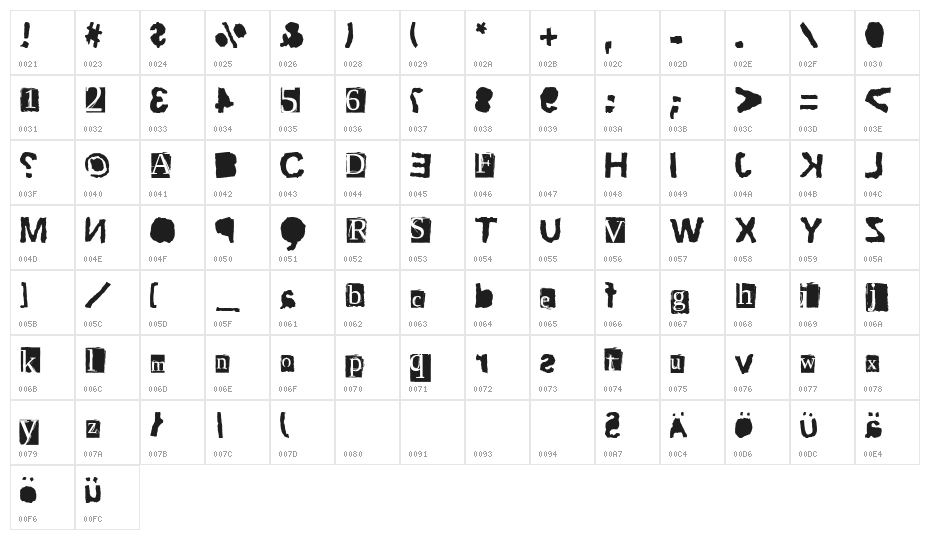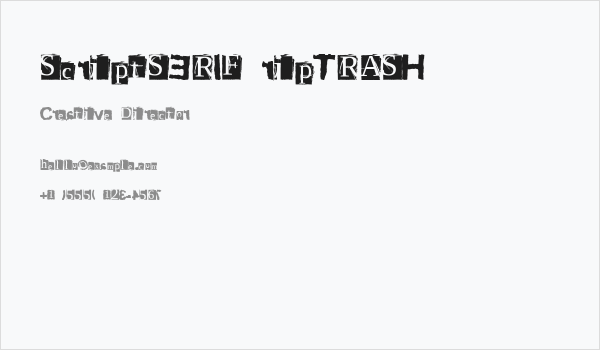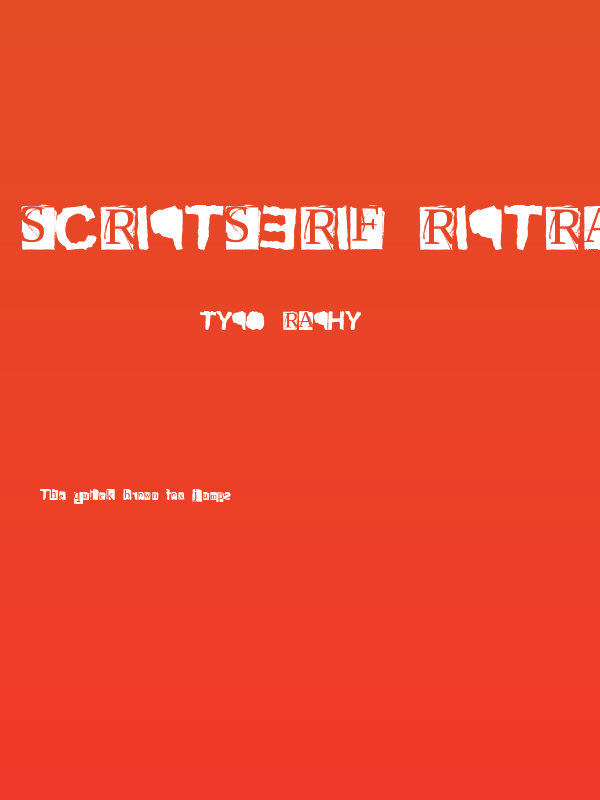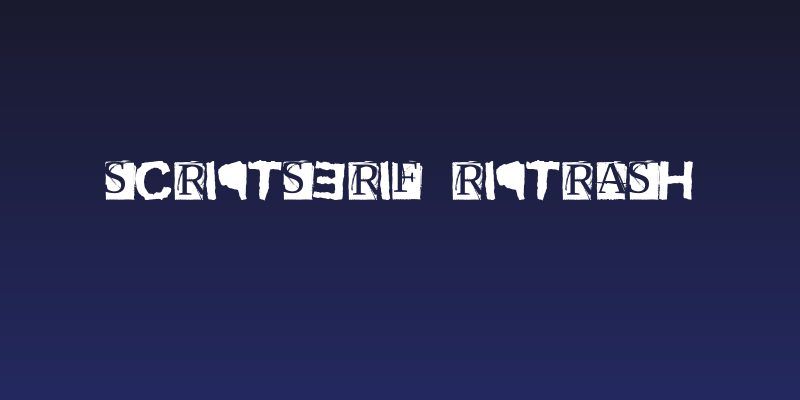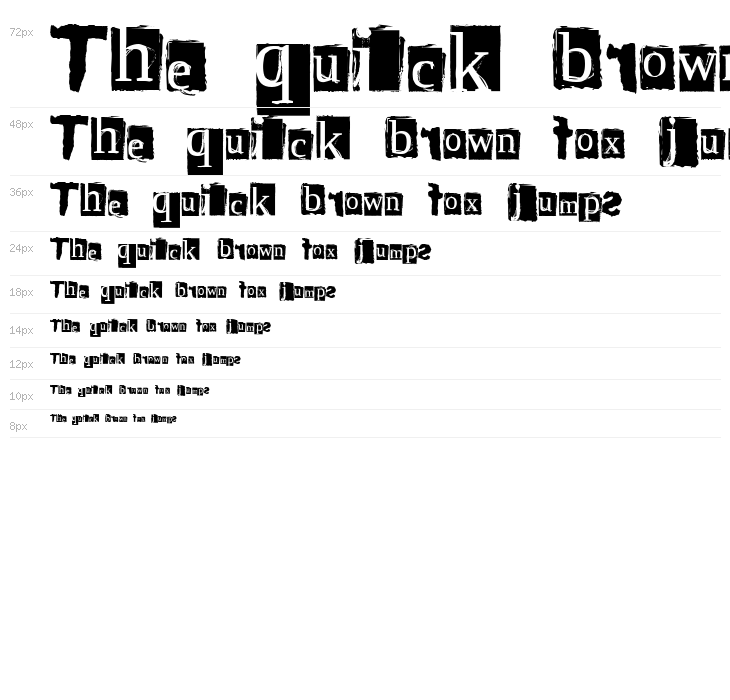
ScriptSERIF ripTRASH Font
ScriptSERIF ripTRASH Description
This font features a distressed, grunge aesthetic with a rough, torn appearance. Each character appears as if it has been ripped from paper, giving it a unique and edgy look. The uppercase and lowercase letters, along with numbers and special characters, maintain this rugged style, making it stand out for creative and bold designs. The irregular edges and inconsistent shapes add to its chaotic charm, making it ideal for projects that require a raw and rebellious feel.
| Overall Style | Grunge, Edgy, Distressed |
| Use Case | Logos, Posters, Album Covers |
| Proposed Projects | Ideal for album covers, posters, streetwear branding, and any project needing a rebellious or raw aesthetic. |